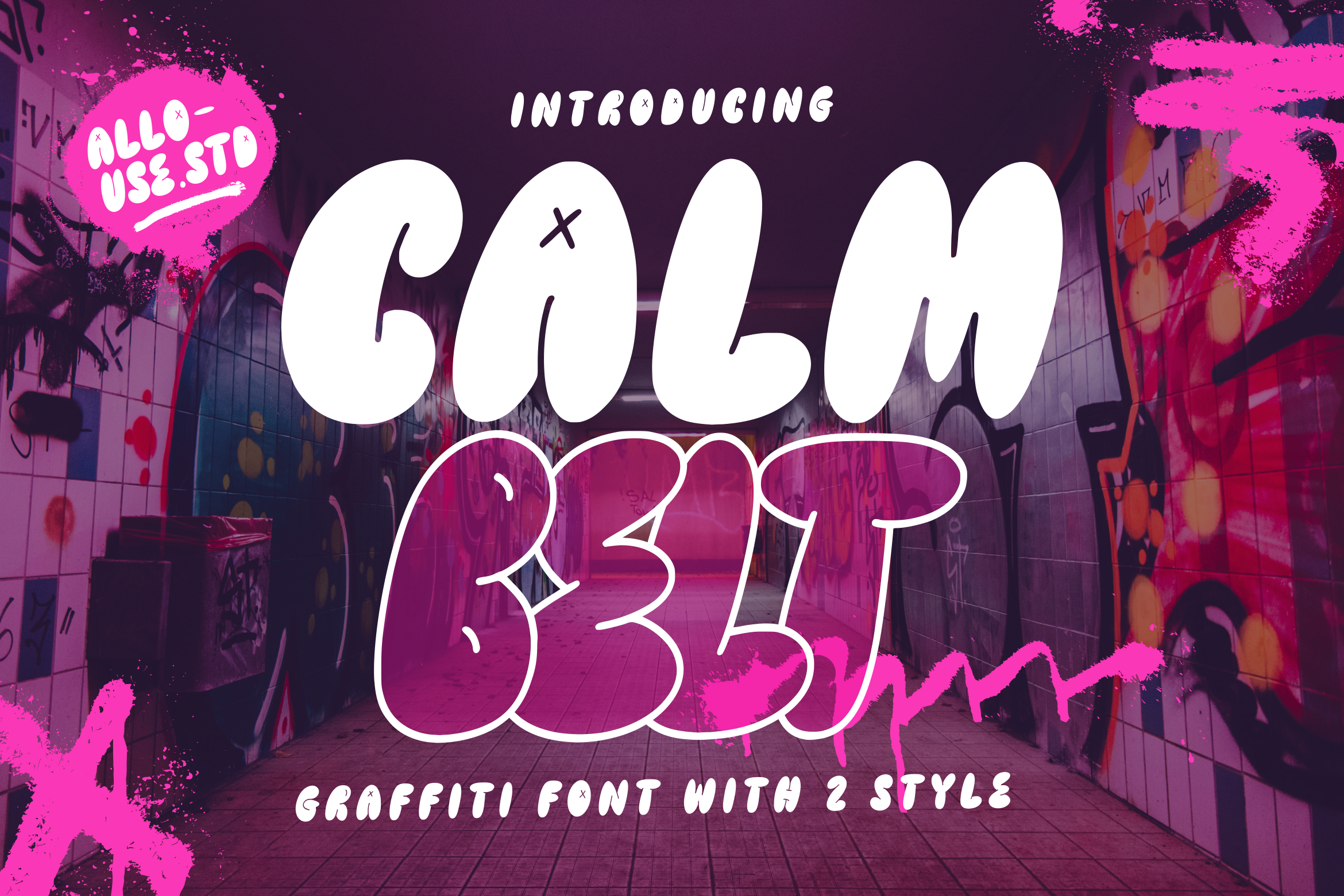
Calmbelt A Bold Graffiti Font
Proudly Present, Calmbelt A Bold Graffiti Font With Two Styles.
Calmbelt is perfect for any titles, logo, product packaging, branding project, megazine, social media, wedding, or just used to express words above the background.
Calmbelt come with Multi-Lingual Support.